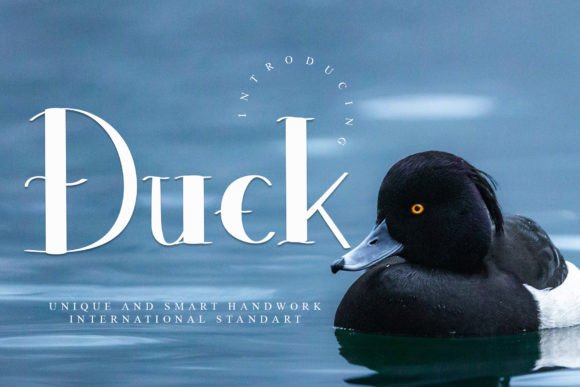
Duck Font is the perfect match for coffee shops, bakeries, and other food and drink businesses seeking a unique, eye-catching aesthetic. Its hand-drawn style adds a touch of whimsy and personality that will make your brand stand out.
This captivating font, exclusive to giartstudios, is designed to make a statement and leave a lasting impression. Whether you're creating menus, social media posts, or packaging, Duck Font will elevate your brand's visibility and attract new customers.